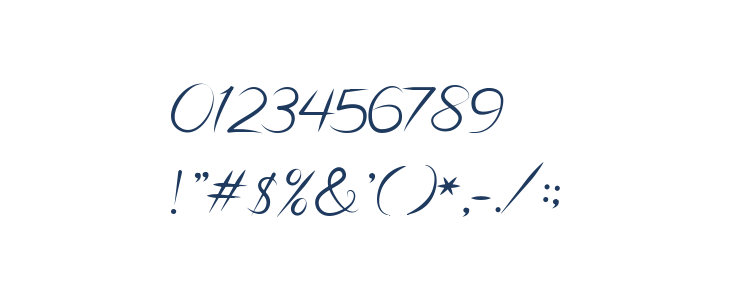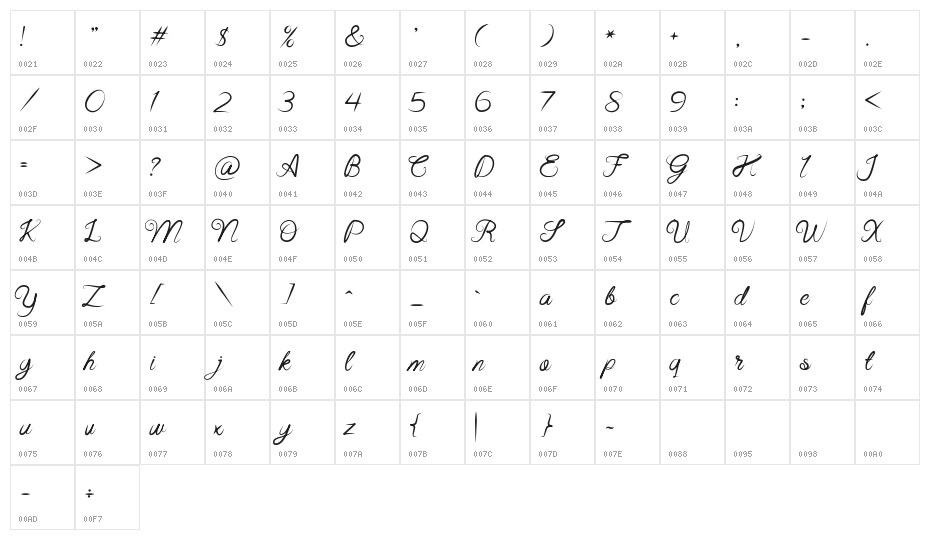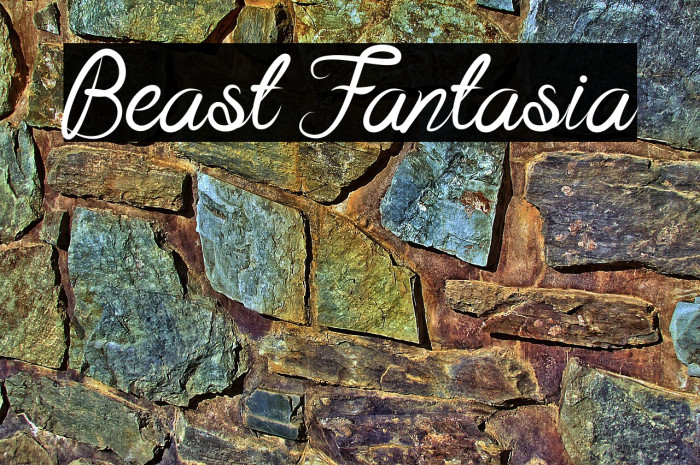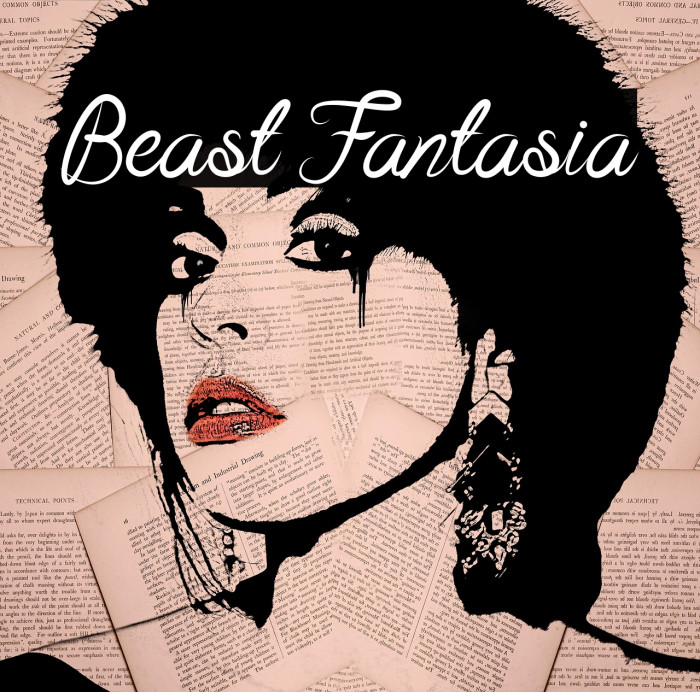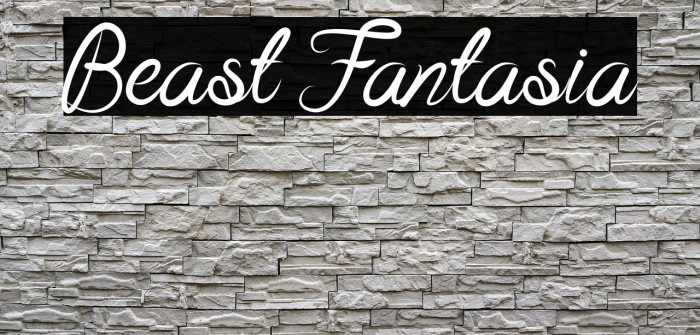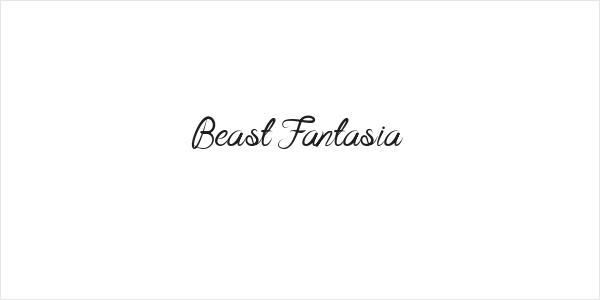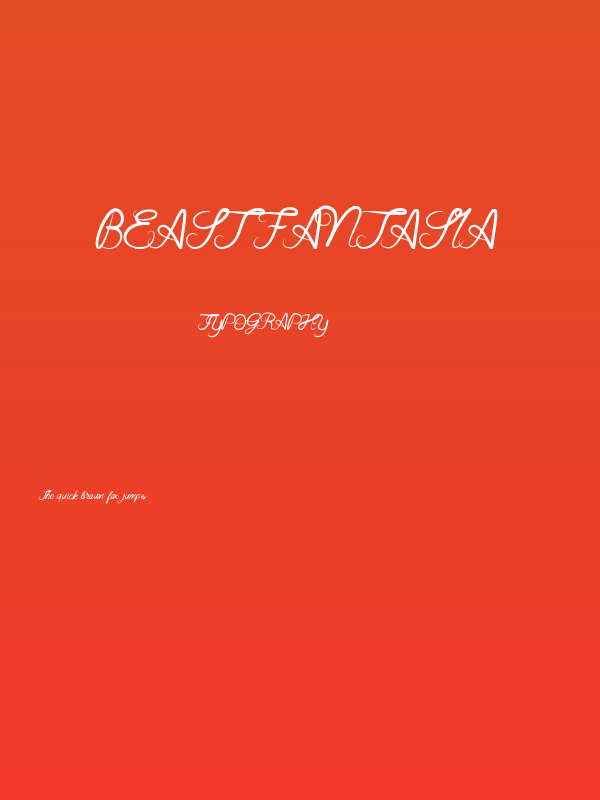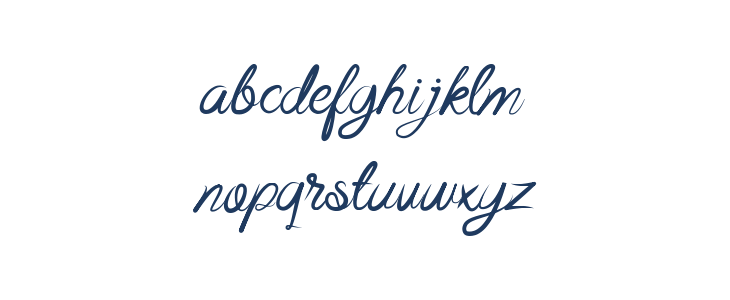
Beast Fantasia Font
Beast Fantasia Description
This elegant script font features a flowing, cursive style with intricate loops and swirls, creating a sense of sophistication and grace. The uppercase letters are particularly ornate, with exaggerated flourishes that add a touch of drama. The lowercase letters maintain a consistent flow, enhancing readability while retaining the decorative essence. Numbers and special characters are designed to match the overall aesthetic, ensuring a cohesive look across all text elements. The font's delicate strokes and high contrast between thick and thin lines contribute to its refined appearance, making it ideal for formal and decorative applications.
| Use Case | Logos, Invitations, Decorative Headlines |
| Proposed Projects | Ideal for wedding invitations, elegant branding, luxury product packaging, and decorative headlines. |